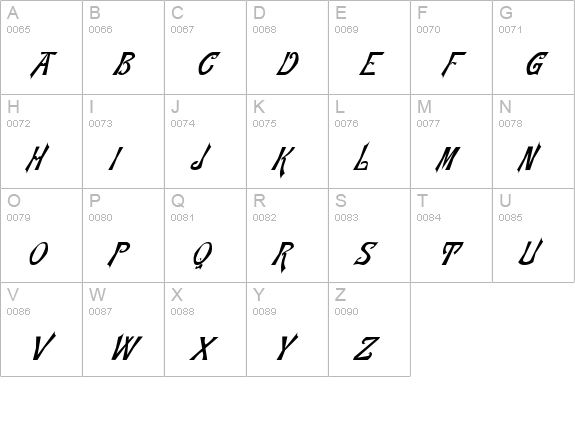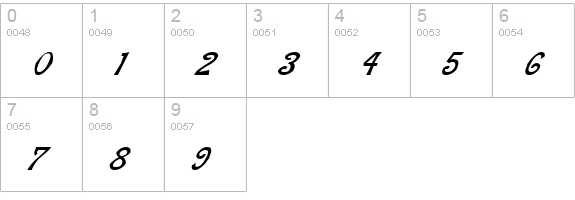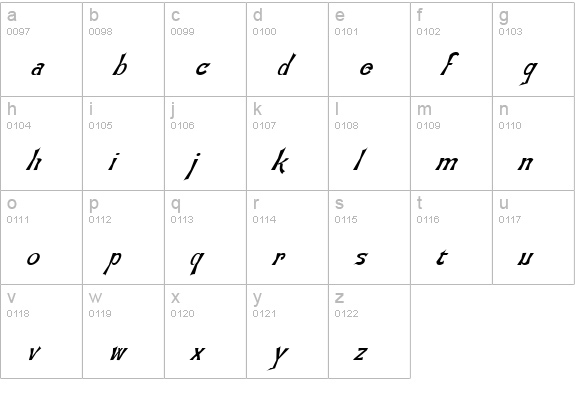
Flemish Italic Font Details
Flemish Italic is a distinctive, italic variant in the Flemish typeface family \xE2\x80\x94 well suited to design and typography projects.
Introducing the exquisite Flemish Italic font, a beautiful typeface that effortlessly combines elegance with a touch of vintage charm. Featuring delicate curves and graceful strokes, this font exudes sophistication and refinement. The Flemish Italic font is perfect for projects that require a classic and timeless look, such as invitations, branding, and editorial designs. What's even better is that the Flemish Italic font is available for free download at FontsMarket.com. Simply head over to the website to add this stunning font to your collection and elevate your designs with its unique flair. Whether you're a professional designer or a creative enthusiast, the Flemish Italic font is sure to inspire and delight with its timeless beauty.